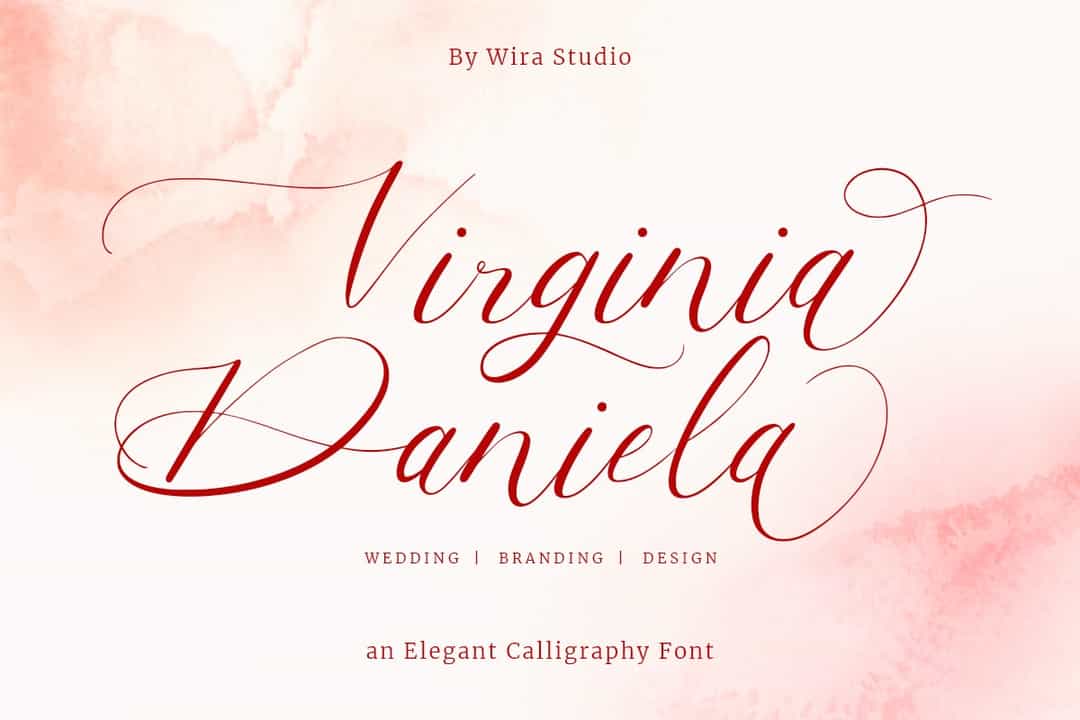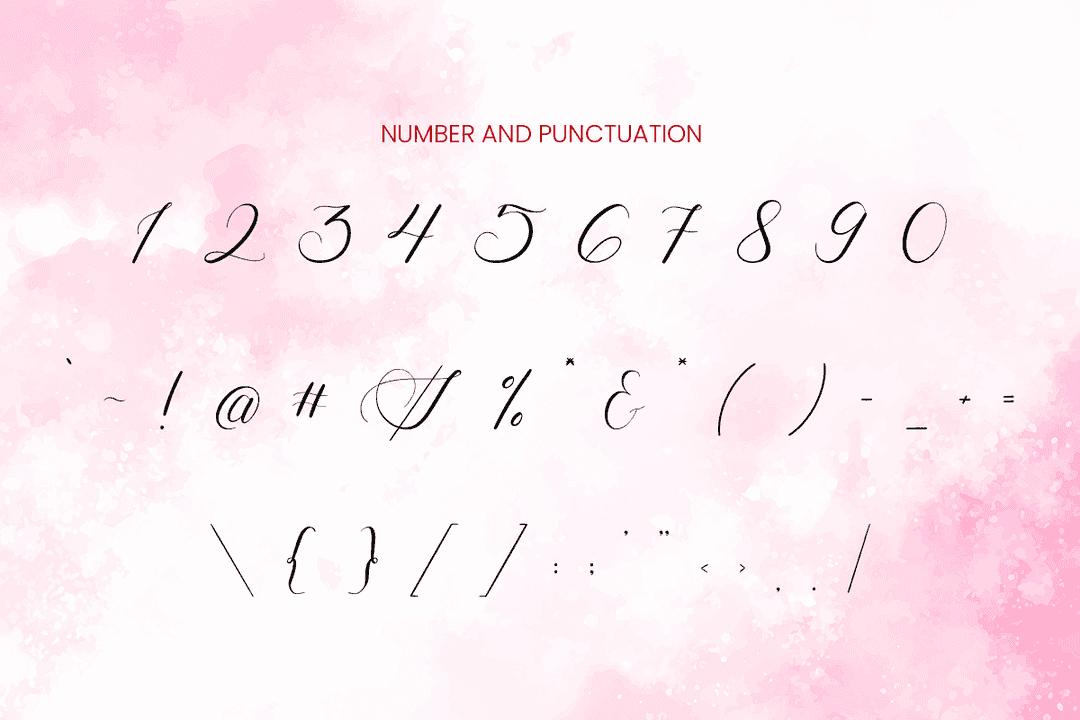
Virginia Daniela is an elegant light calligraphy typeface with a distinct appearance and captivating impact, that adds sophistication and class to any design you plan on developing! Plus, being PUA encoded, accessing all its amazing glyphs and ligatures is simple!